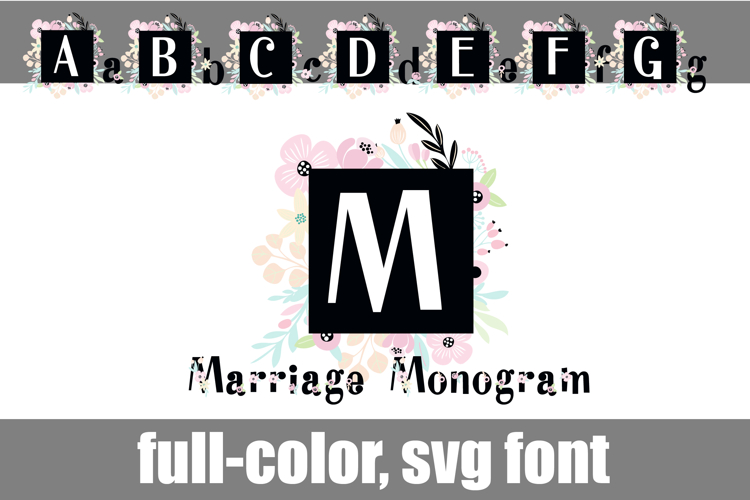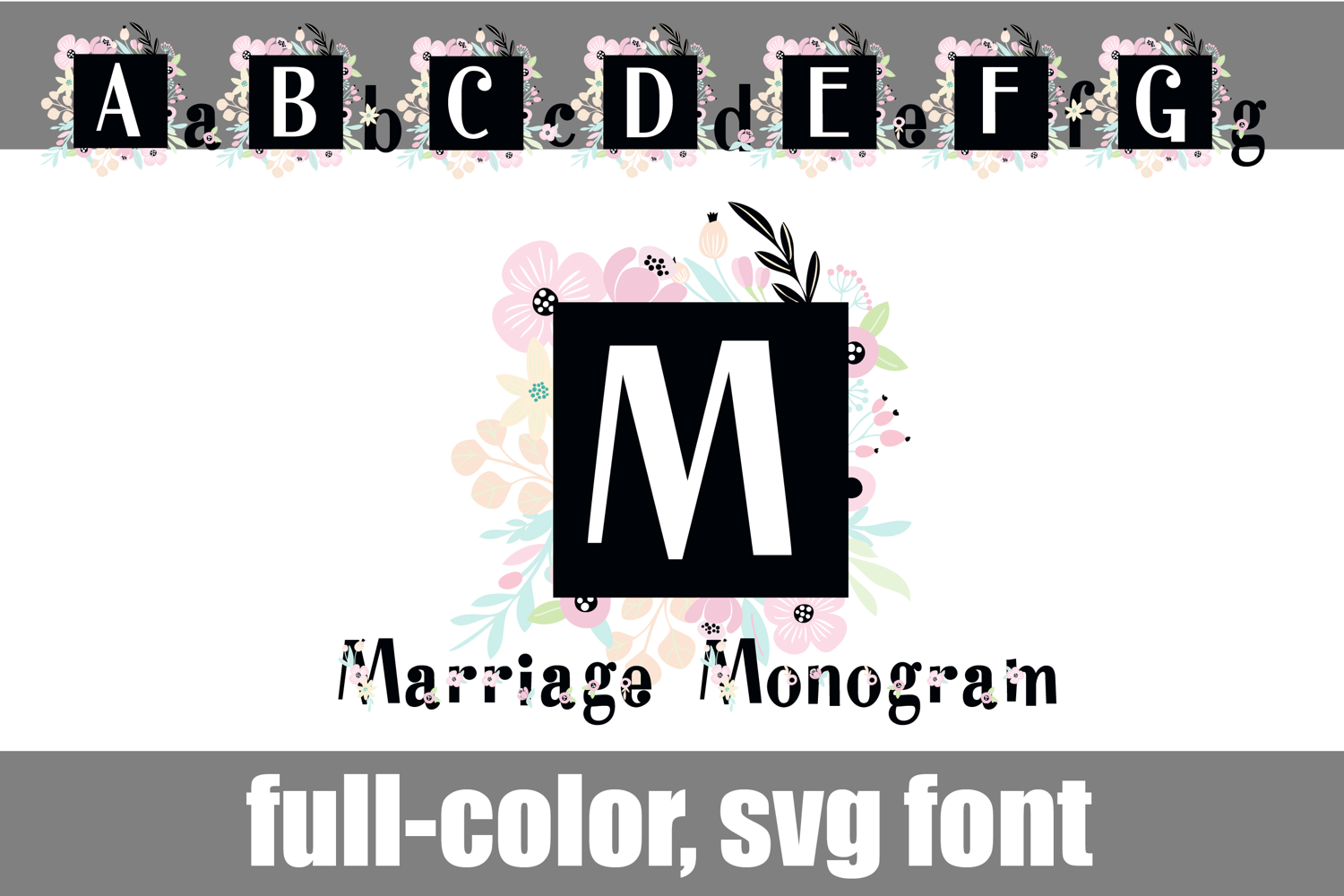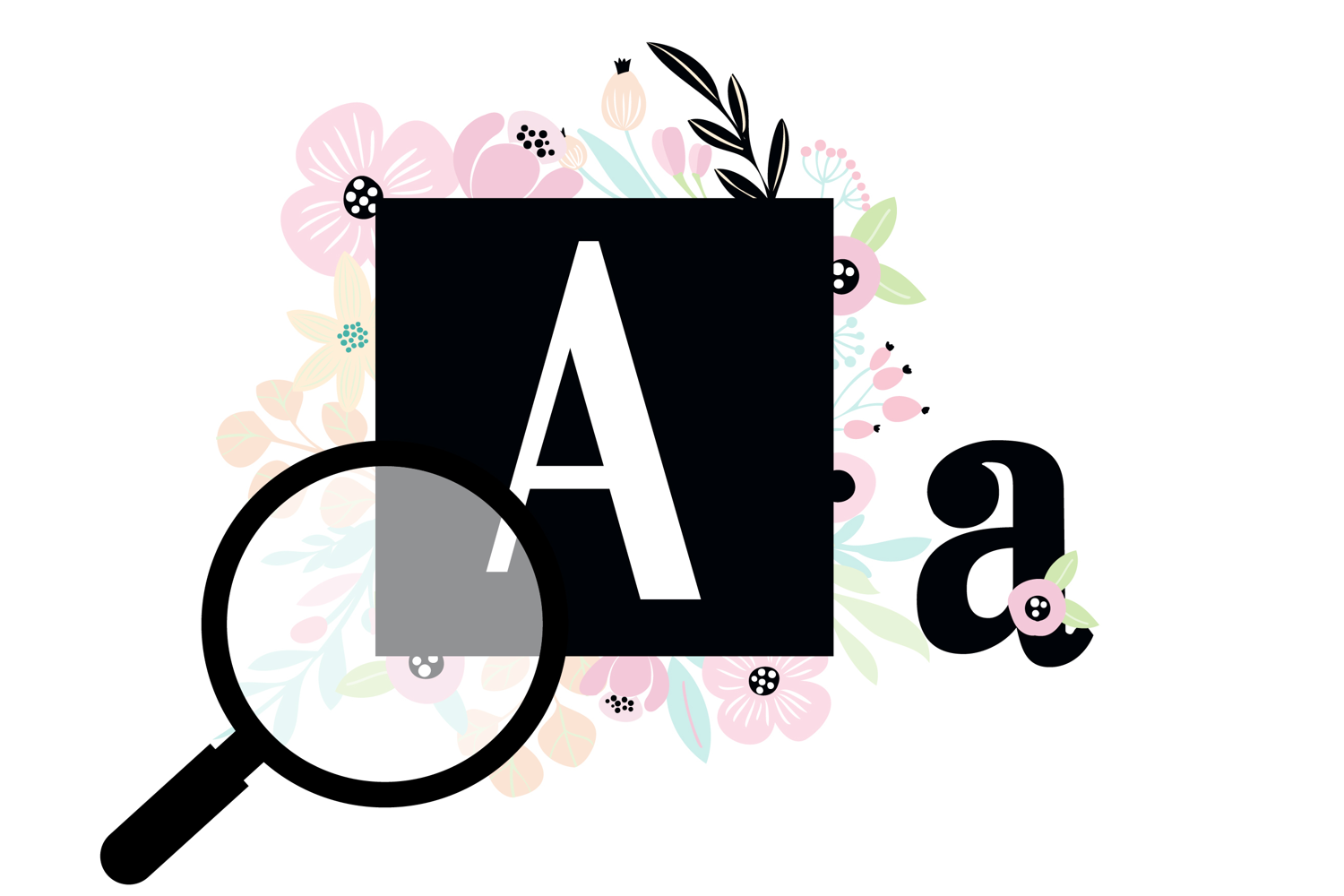
Marriage Monogram Color Font
This full-color, sans serif font is has a boxy floral uppercase and a lowercase of floraled, simple lettering. There is an alt case of additional colors of each letter that you can access through your system's character map.